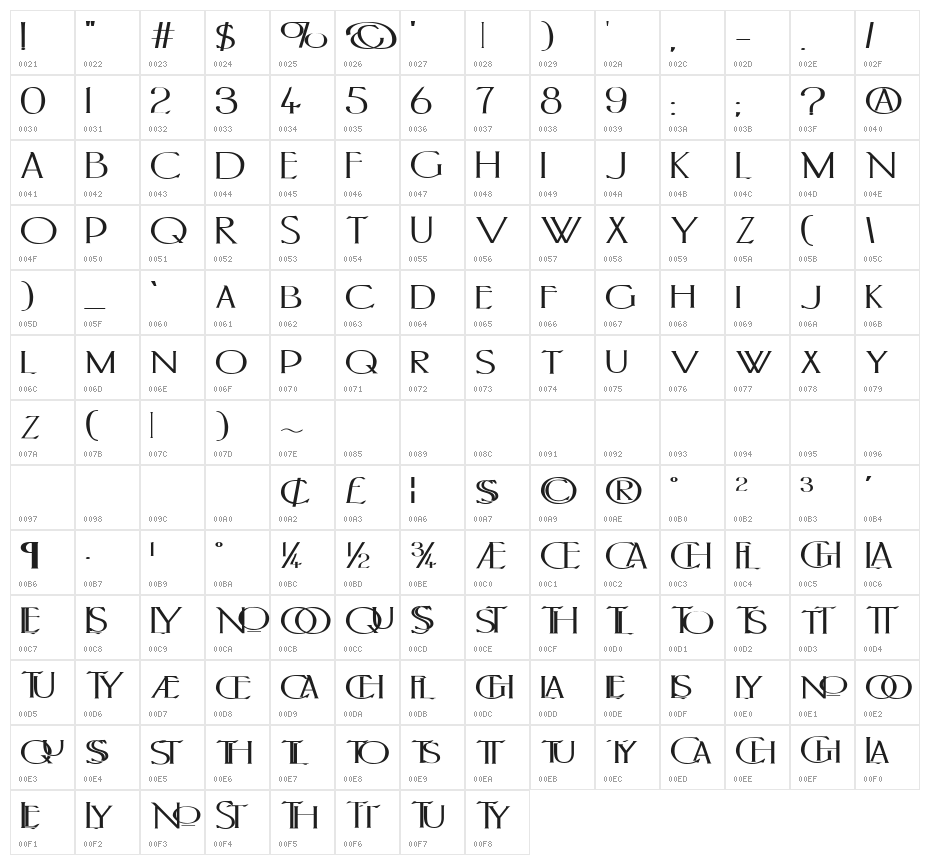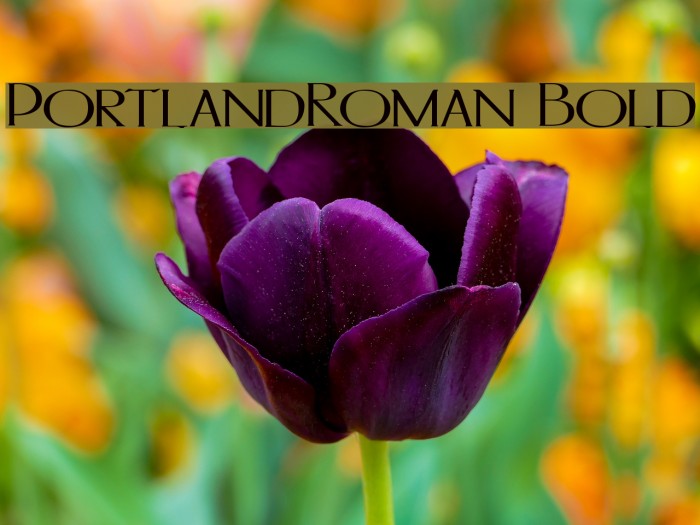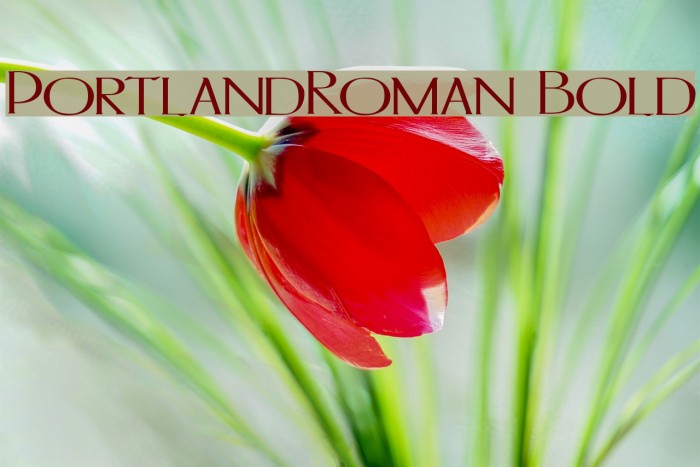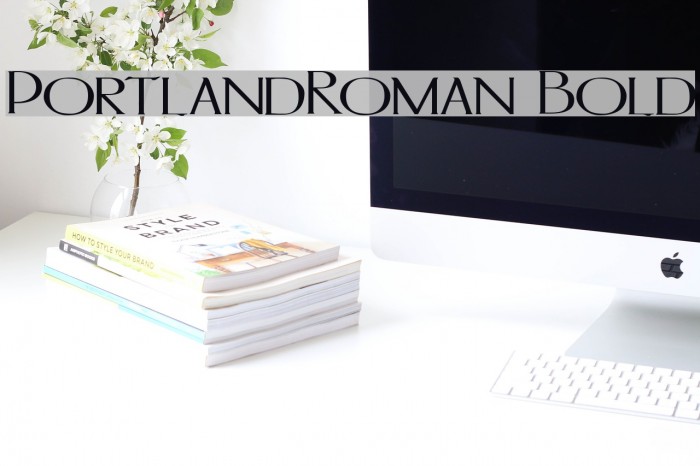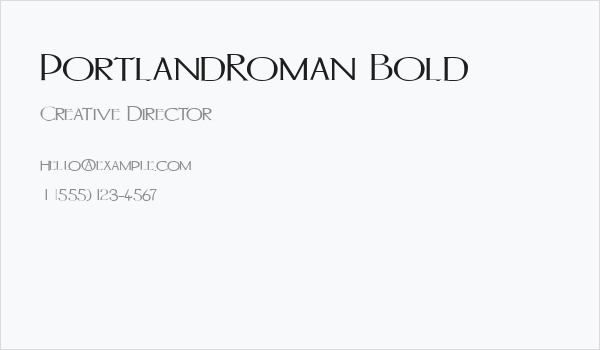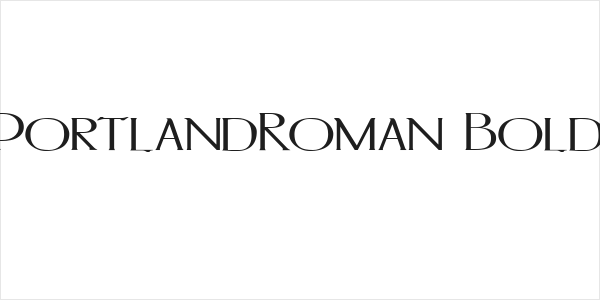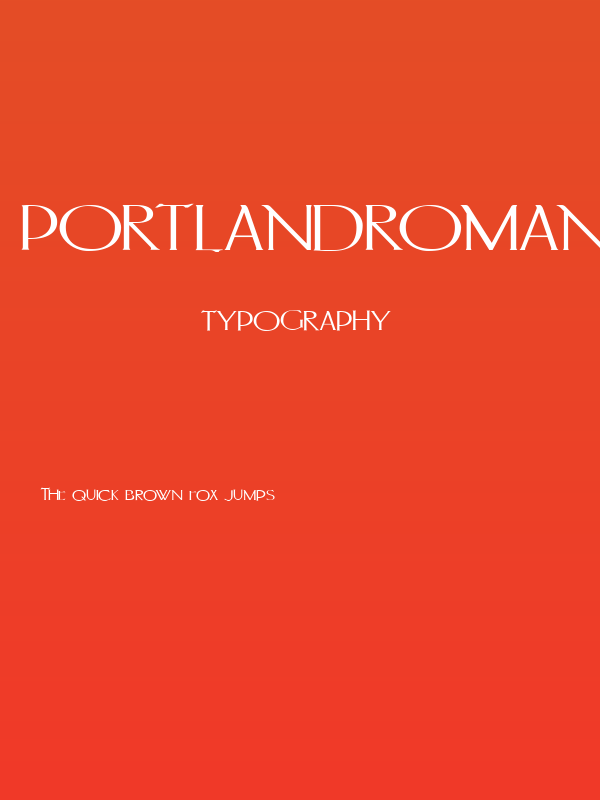
PortlandRoman Bold Font
PortlandRoman Bold Description
This font features a bold and elegant serif style with a modern twist. The characters are designed with sharp, clean lines and subtle curves, giving it a sophisticated and contemporary appearance. The uppercase letters are particularly striking, with a strong presence that commands attention. The numerals and special characters maintain the same level of refinement, ensuring consistency across all text elements. This font is well-suited for projects that require a touch of elegance and modernity.
| Use Case | Headlines, Logos, Editorial design |
| Proposed Projects | Ideal for branding, editorial design, luxury product packaging, and high-end invitations. |